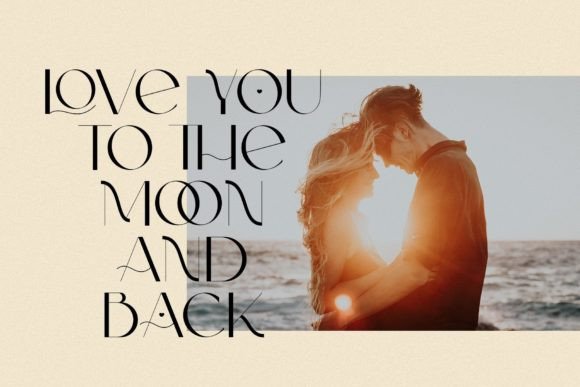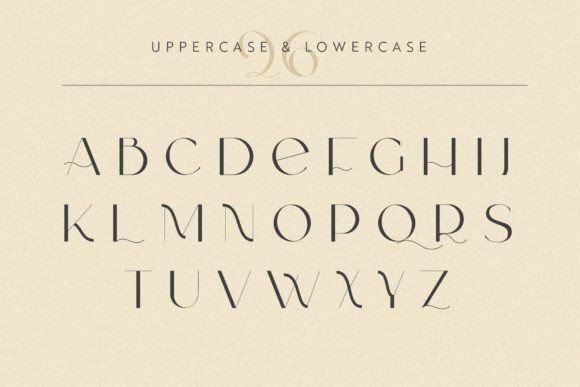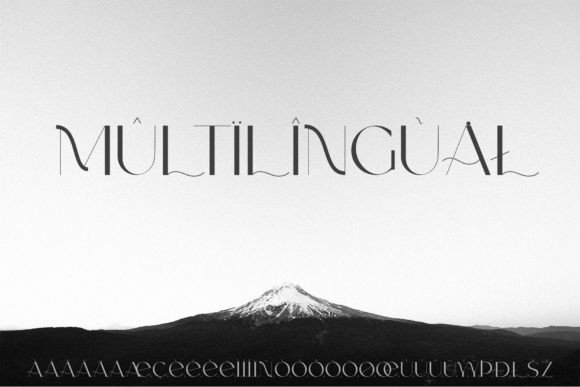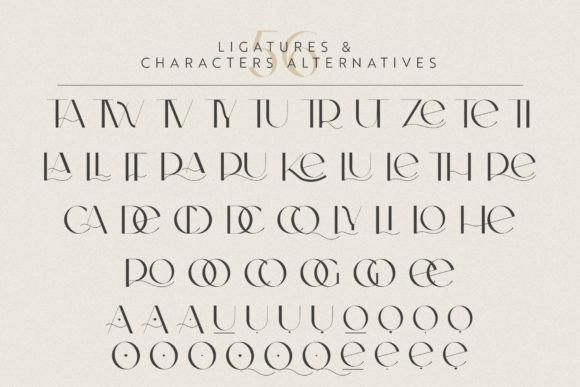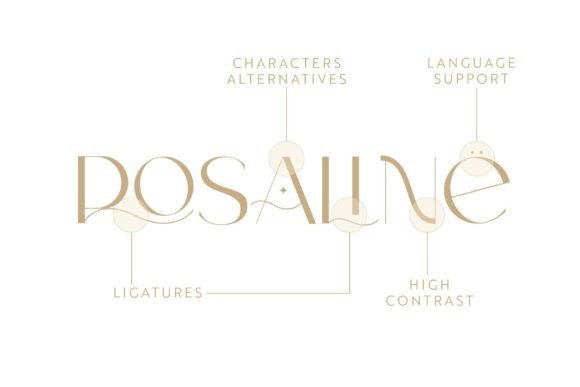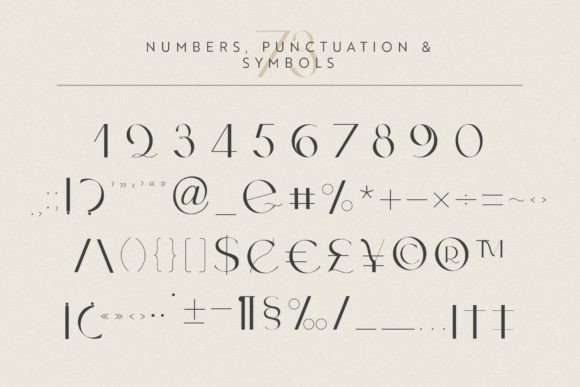
Cameron Font: Elevate Your Designs with Elegance and Sophistication
In the world of typography, fonts play a crucial role in conveying the tone and aesthetic of a design. For designers and crafters seeking to add a touch of elegance and sophistication to their work, the Cameron font is an excellent choice. This stylish ligature sans serif font has gained popularity for its versatility and stunning appearance, making it perfect for various design projects.
What is Cameron Font?
Cameron is a beautifully crafted ligature sans serif font that exudes elegance and refinement. Its clean lines, subtle curves, and sophisticated style make it an ideal choice for designs that require a high level of sophistication. Whether you’re working on wedding invitations, thank you cards, quotes, greeting cards, logos, business cards, or any other design that needs an elegant touch, Cameron font is the perfect fit.
Key Features of Cameron Font
So, what sets Cameron font apart from other fonts? Here are some of its key features:
- Ligature Sans Serif Font: Cameron font boasts a unique ligature sans serif style that gives it a distinctive and elegant appearance.
- Stunning on Various Designs: Cameron font looks stunning on wedding invitations, thank you cards, quotes, greeting cards, logos, business cards, and every other design that needs an elegant touch.
Why Choose Cameron Font?
With so many fonts available, why should you choose Cameron font for your designs? Here are some compelling reasons:
- Elegance and Sophistication: Cameron font adds a touch of elegance and sophistication to any design, making it perfect for projects that require a high level of refinement.
- Versatility: This font is versatile and can be used on various design projects, from wedding invitations to business cards.
Use Cases for Cameron Font
Cameron font is suitable for a wide range of design projects, including:
- Wedding Invitations: Add a touch of elegance to your wedding invitations with Cameron font.
- Thank You Cards: Express your gratitude with beautifully designed thank you cards featuring Cameron font.
- Quotes: Make your quotes stand out with the elegant and sophisticated style of Cameron font.
- Greeting Cards: Create stunning greeting cards for special occasions with Cameron font.
- Logos: Use Cameron font to create elegant and sophisticated logos for your business or brand.
- Business Cards: Elevate your business cards with the refined style of Cameron font.
Tips for Using Cameron Font
To get the most out of Cameron font, here are some tips:
- Pair with Other Fonts: Experiment with pairing Cameron font with other fonts to create a unique and visually appealing design.
- Adjust Font Size: Adjust the font size to suit your design needs, and make sure it’s legible and easy to read.
- Use Ligatures: Take advantage of the ligatures and glyphs available in Cameron font to add a touch of elegance to your design.
| Font Name | Cameron Font |
| Author | kandellaart |
In conclusion, Cameron font is an excellent choice for designers and crafters seeking to add a touch of elegance and sophistication to their work. With its stylish ligature sans serif style, PUA encoding, and versatility, this font is perfect for various design projects. Whether you’re working on wedding invitations, thank you cards, quotes, greeting cards, logos, business cards, or any other design that needs an elegant touch, Cameron font is sure to impress.